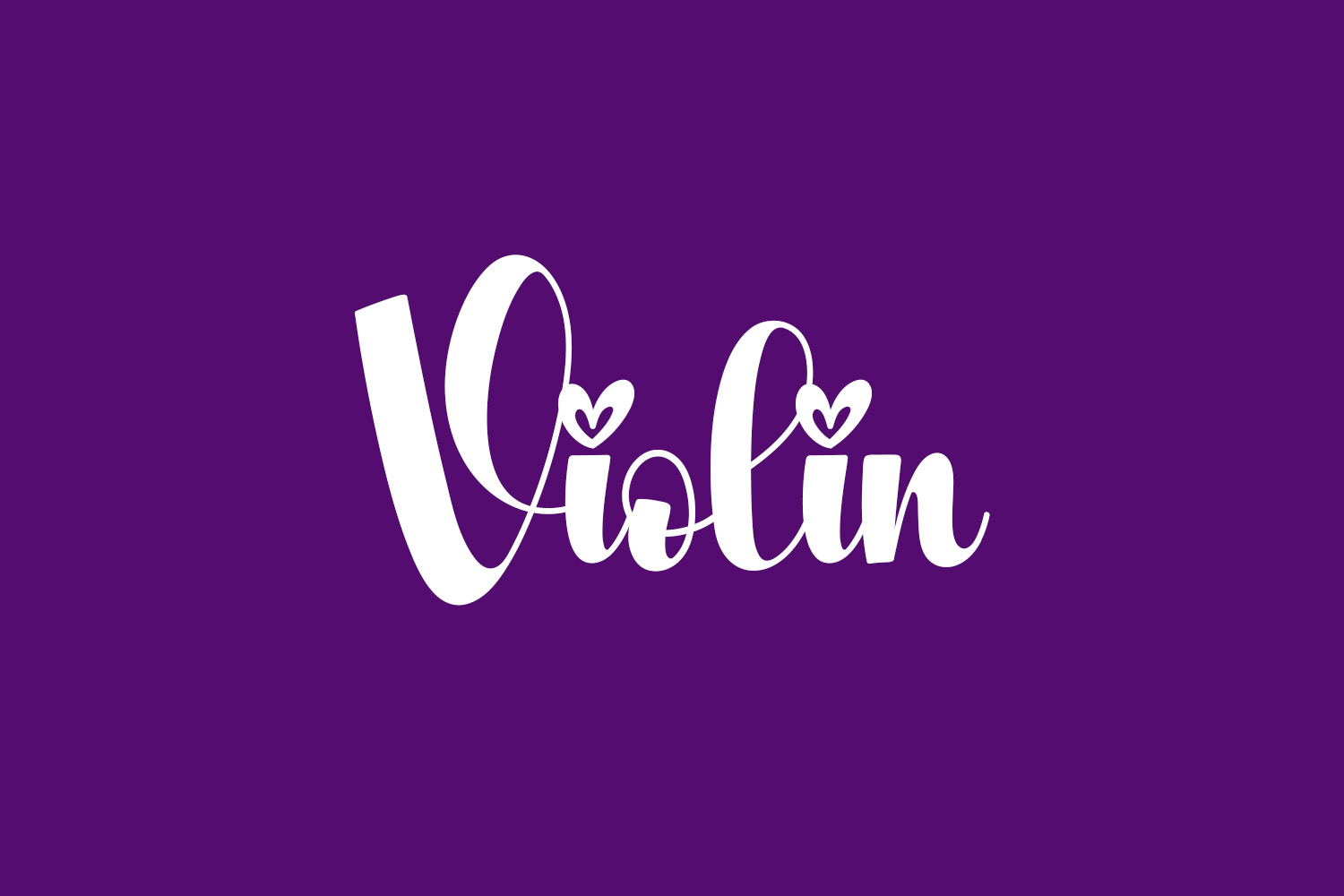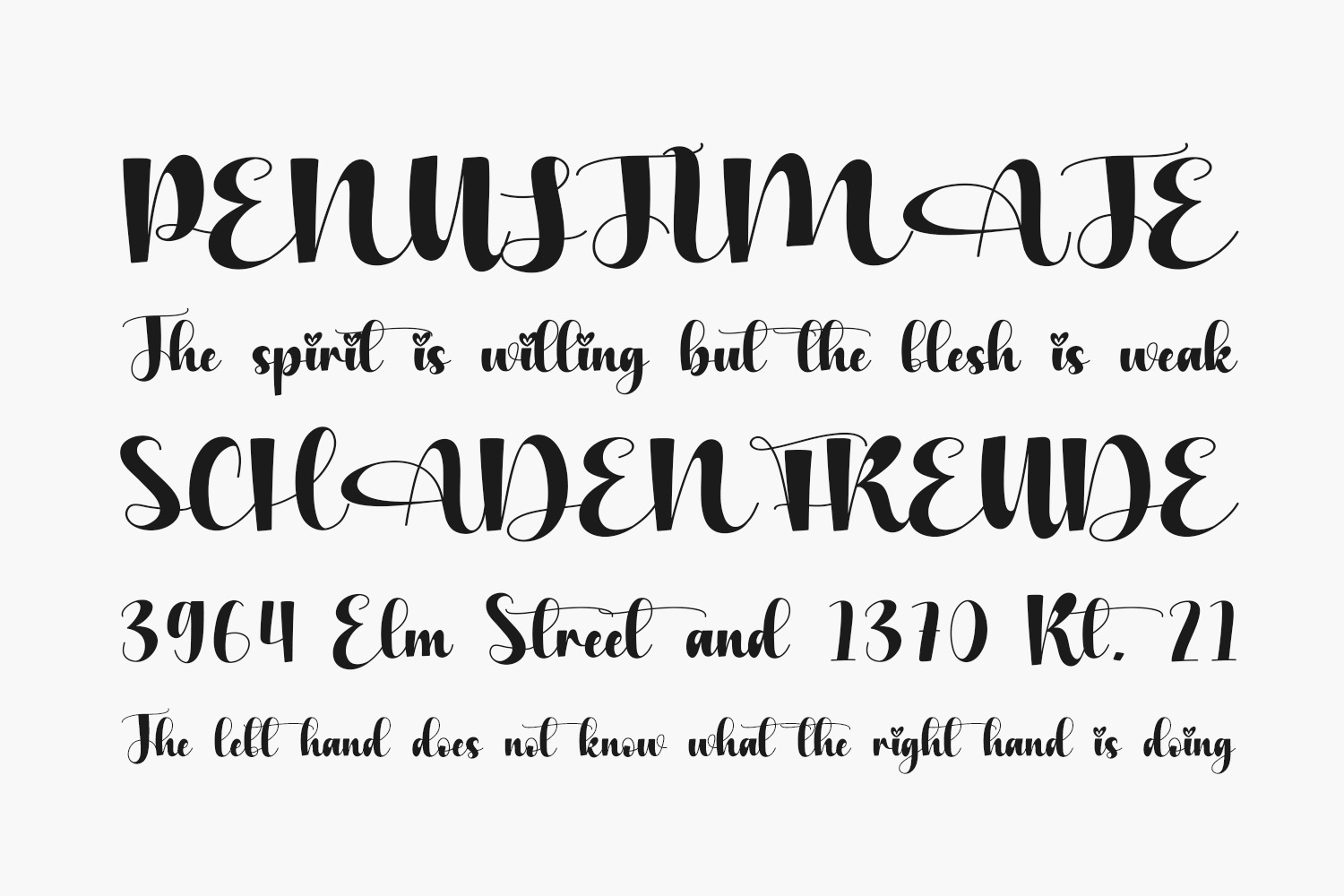
Introducing Violin Free Font, a laid-back and easygoing script font. Embrace its remarkably versatile style to craft stunning wedding invitations, elegant stationery art, attention-grabbing social media posts, and beyond. Let Violin be the key to infusing your creations with effortless charm and appeal. Elevate your designs with the relaxed sophistication of Violin. Violin Free Font is free for personal use only. Please purchase the full version for commercial use.
Designed by Scratchones